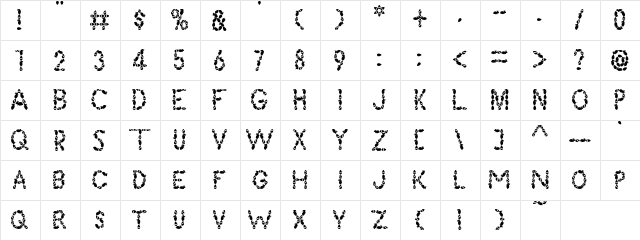
AC1-EasterBunny Regular
Design Context for AC1-EasterBunny Typeface
AC1-EasterBunny is a composed and adaptable typeface that performs quietly and consistently across a wide range of design contexts.